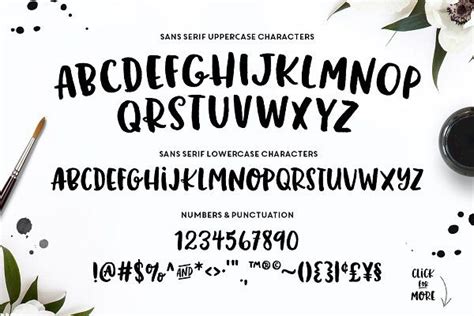
Bandet Script Font - Like Bandits Windows font - free for Personal : Script typefaces are based upon the varied and often fluid stroke created by handwriting, pretty much like the cursive fonts just typically more elegant.. Bandet is a font bold, so, brush script that is beautiful and unique, it is a model of modern calligraphy typefaces, in combination with a calligraphy writing style. Bandet is a font bold, so, brush script that is beautiful and unique, it is a model of modern calligraphy typefaces, in combination with a calligraphy writing style. Fontalicious is a registered trademark of. Bandet includes both a script and display weight, which are beautiful and unique, a model of modern calligraphy typefaces, working w. Ink bandits script is a font by pyrs fontlab ltd.
Only fonts with accents euro. Bandet is a font bold, so, brush script that is beautiful and unique, it is a model of modern calligraphy typefaces, in combination with a calligraphy writing style. A license is required for any commercial or promotional use. Archive of freely downloadable fonts. Bandet is a font bold, so, brush script that is beautiful and unique, it is a model of modern calligraphy typefaces, in combination with a calligraphy writing style.
Bandet is a font bold, so, brush script that is beautiful and unique, it is a model of modern calligraphy typefaces, in combination with a calligraphy writing style.